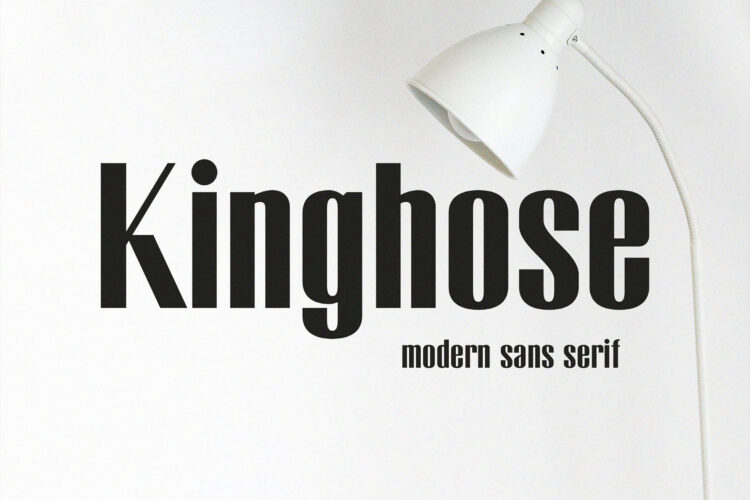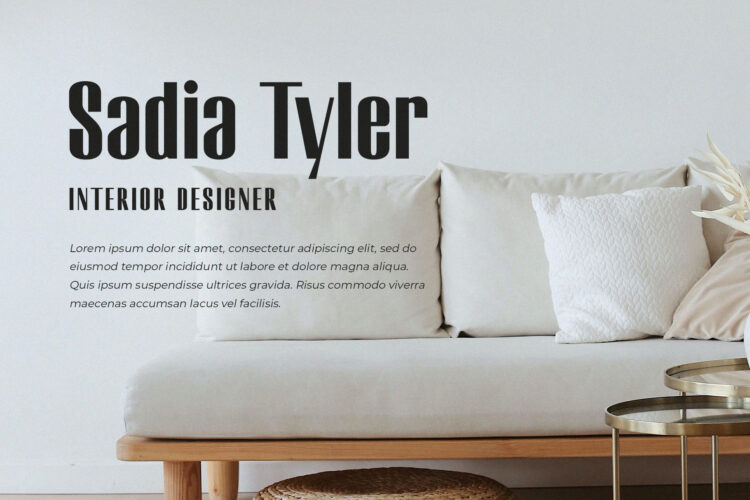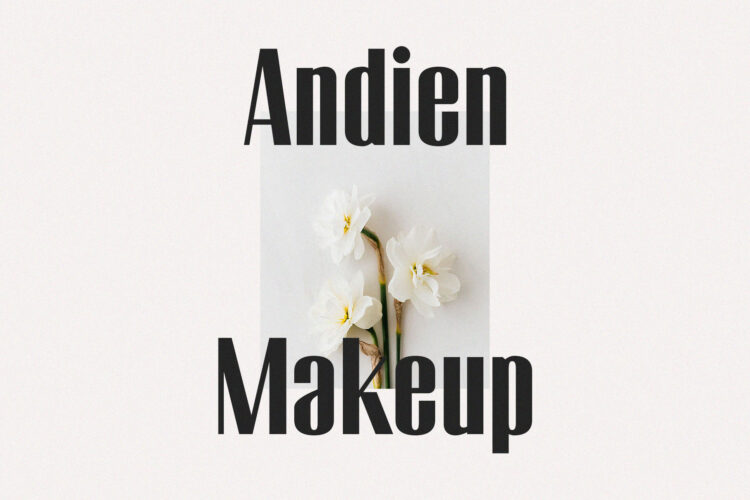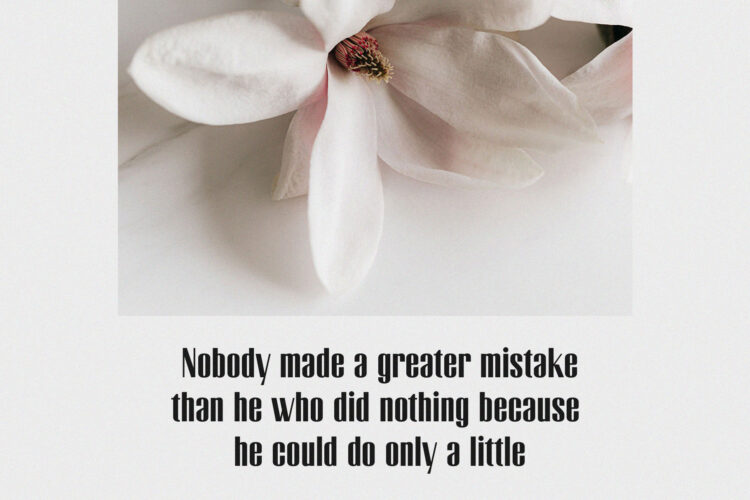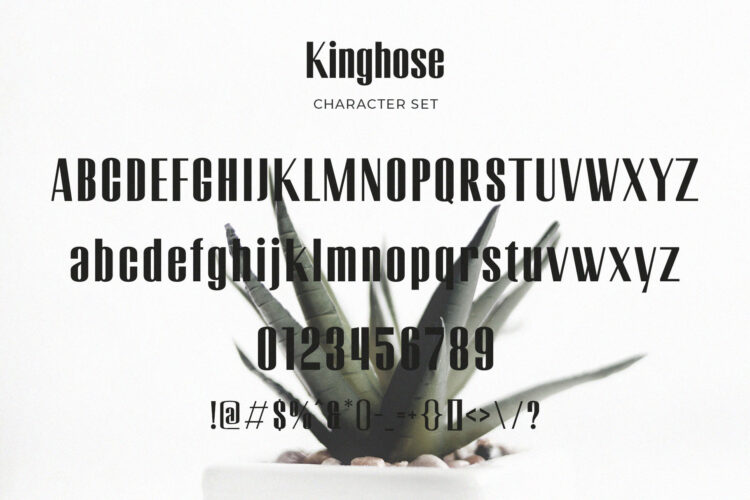
Introducing our new Kinghose, modern sans serif font with elegant style this is perfect for branding, logos, invitation, magazines, product packaging and more.
Kinghose – Modern Sans Serif